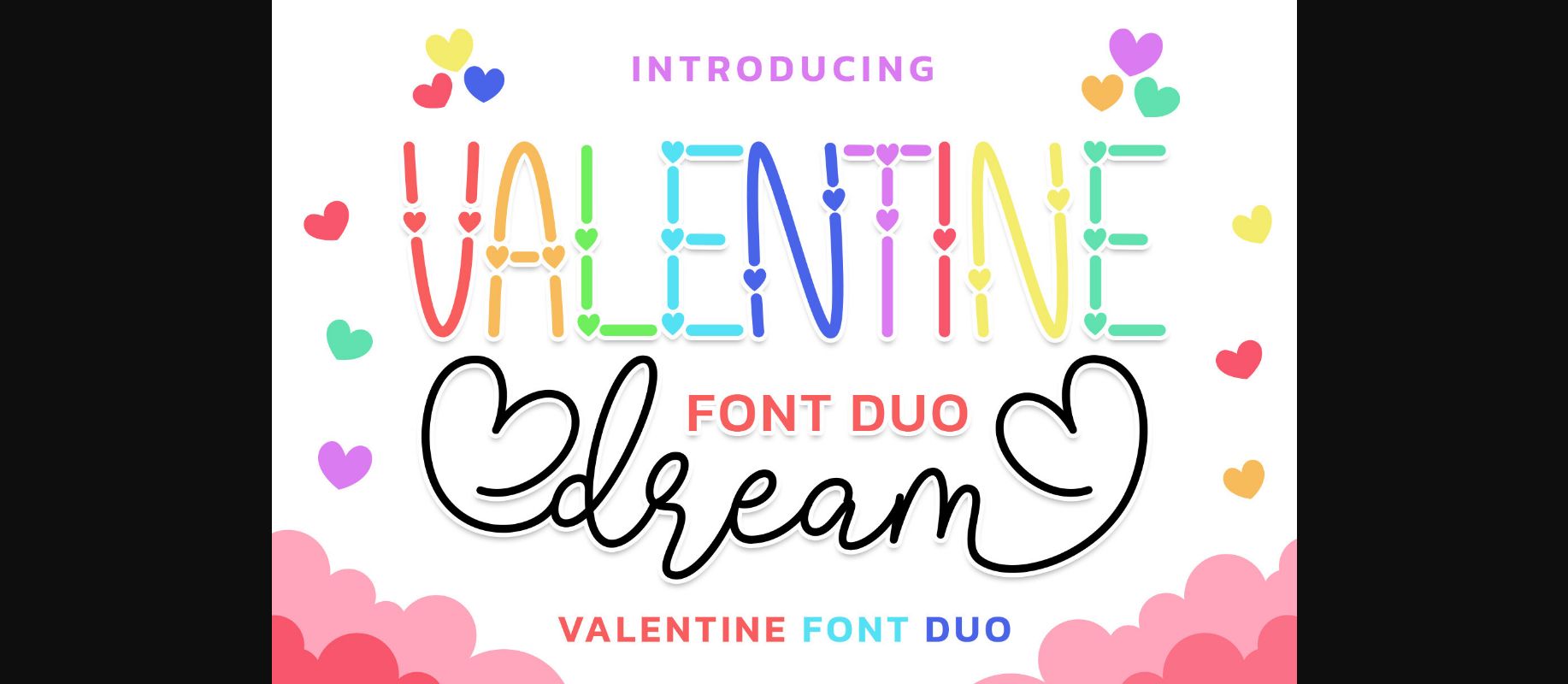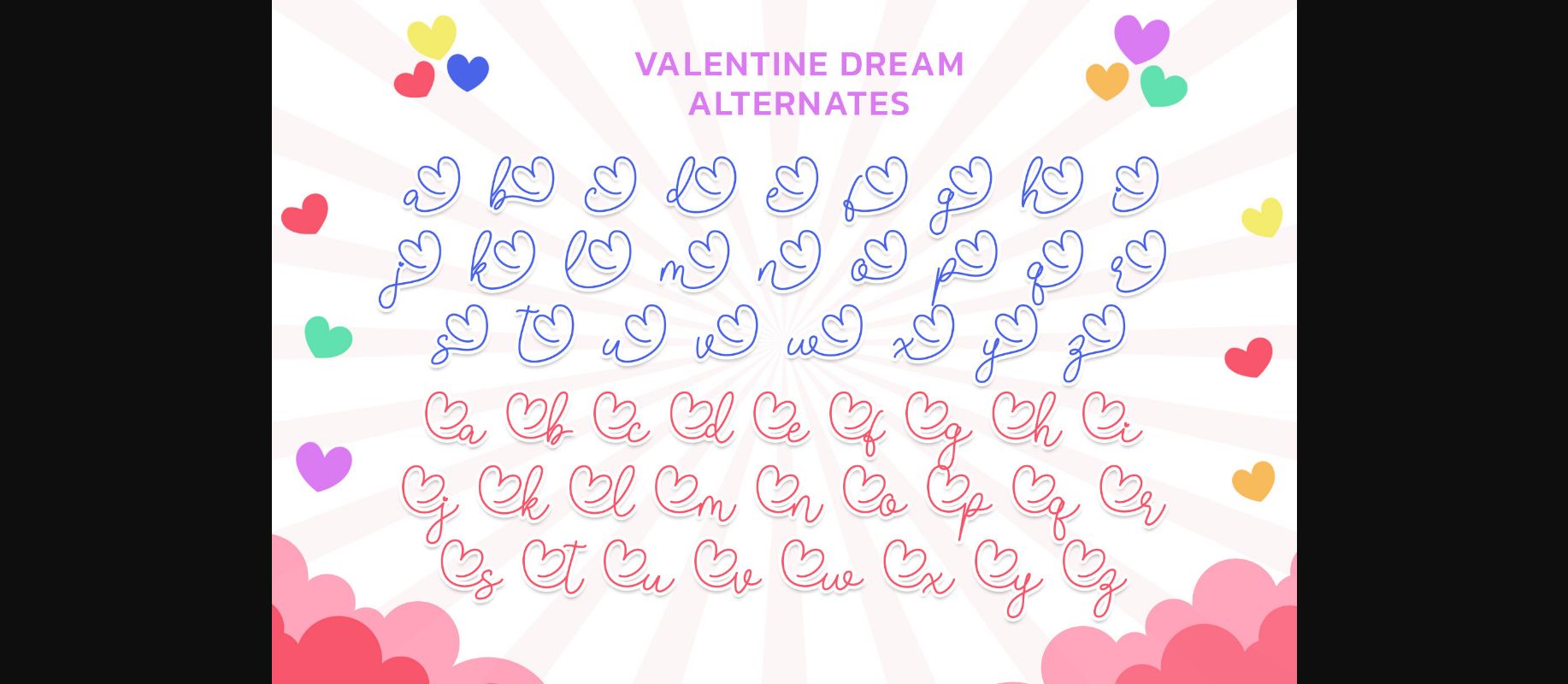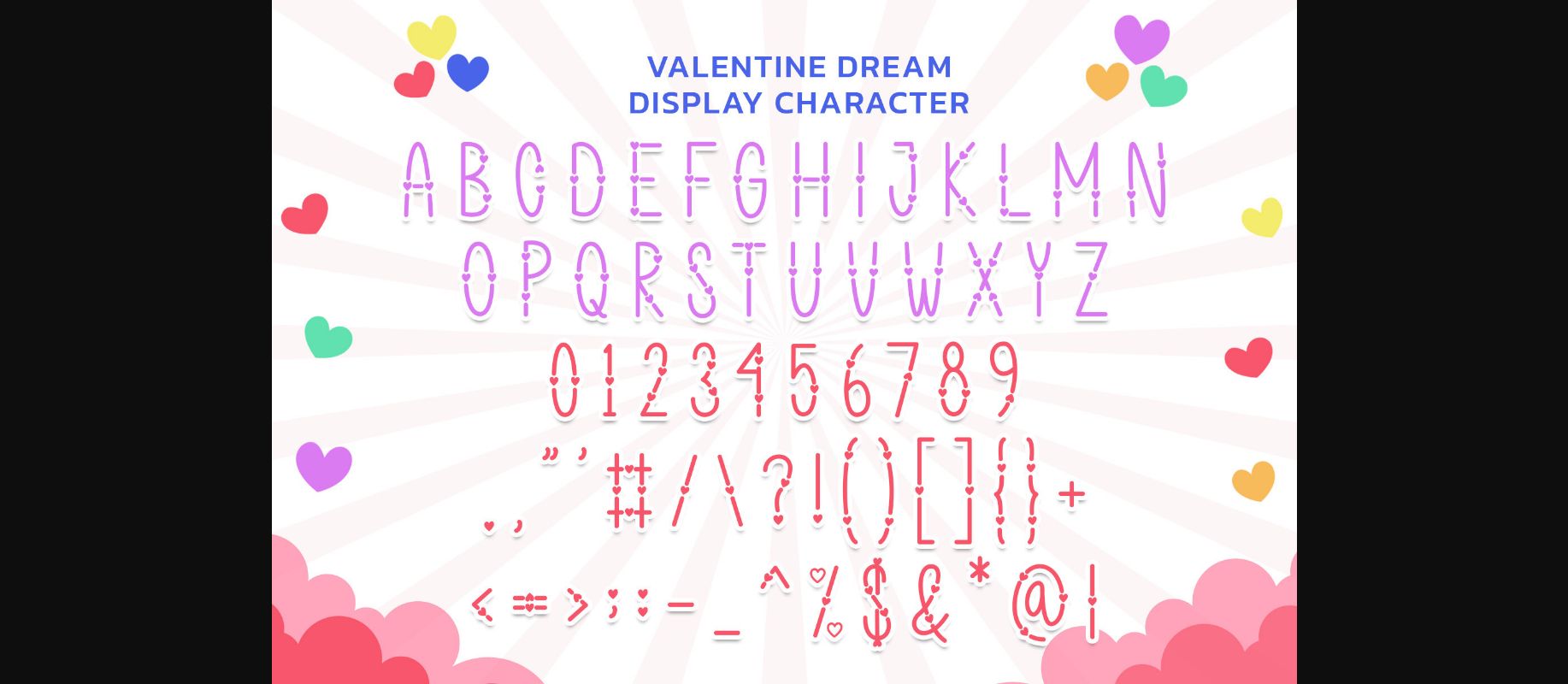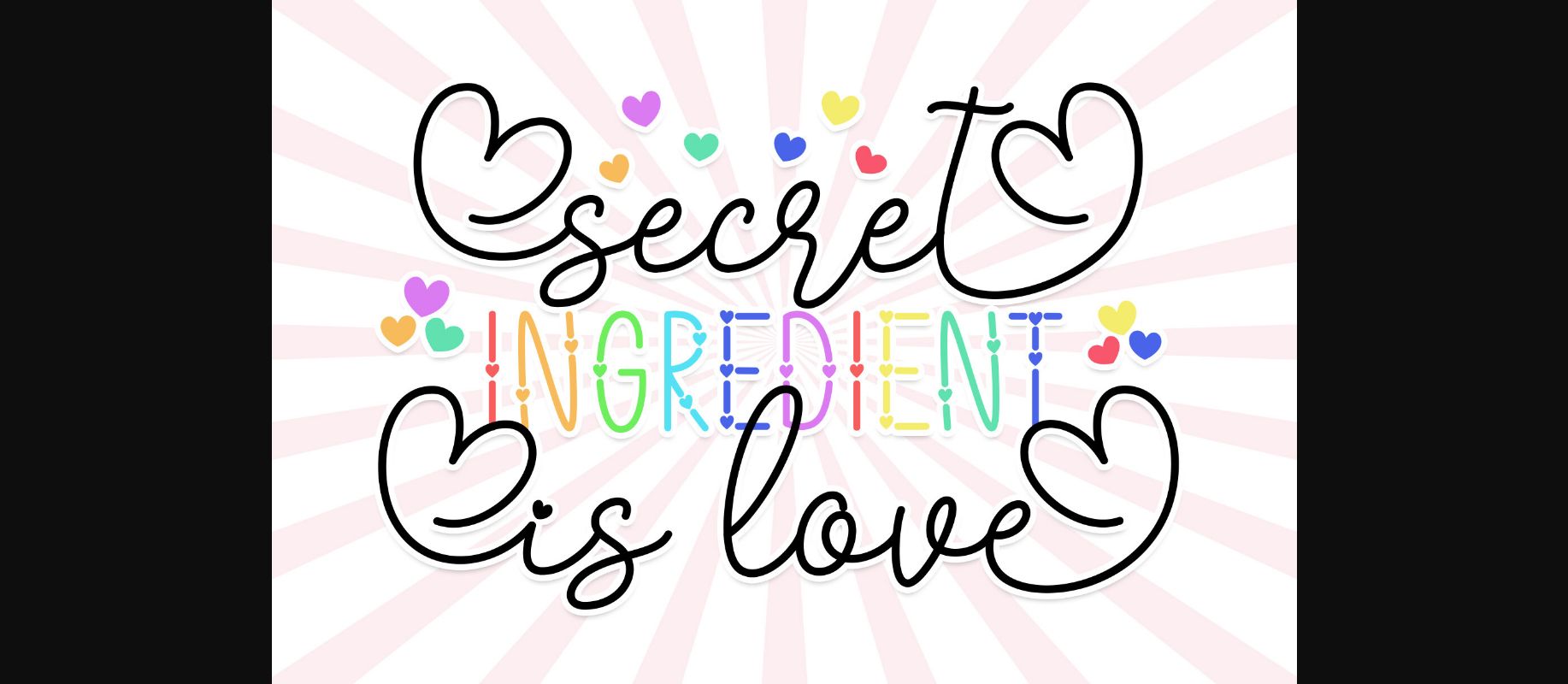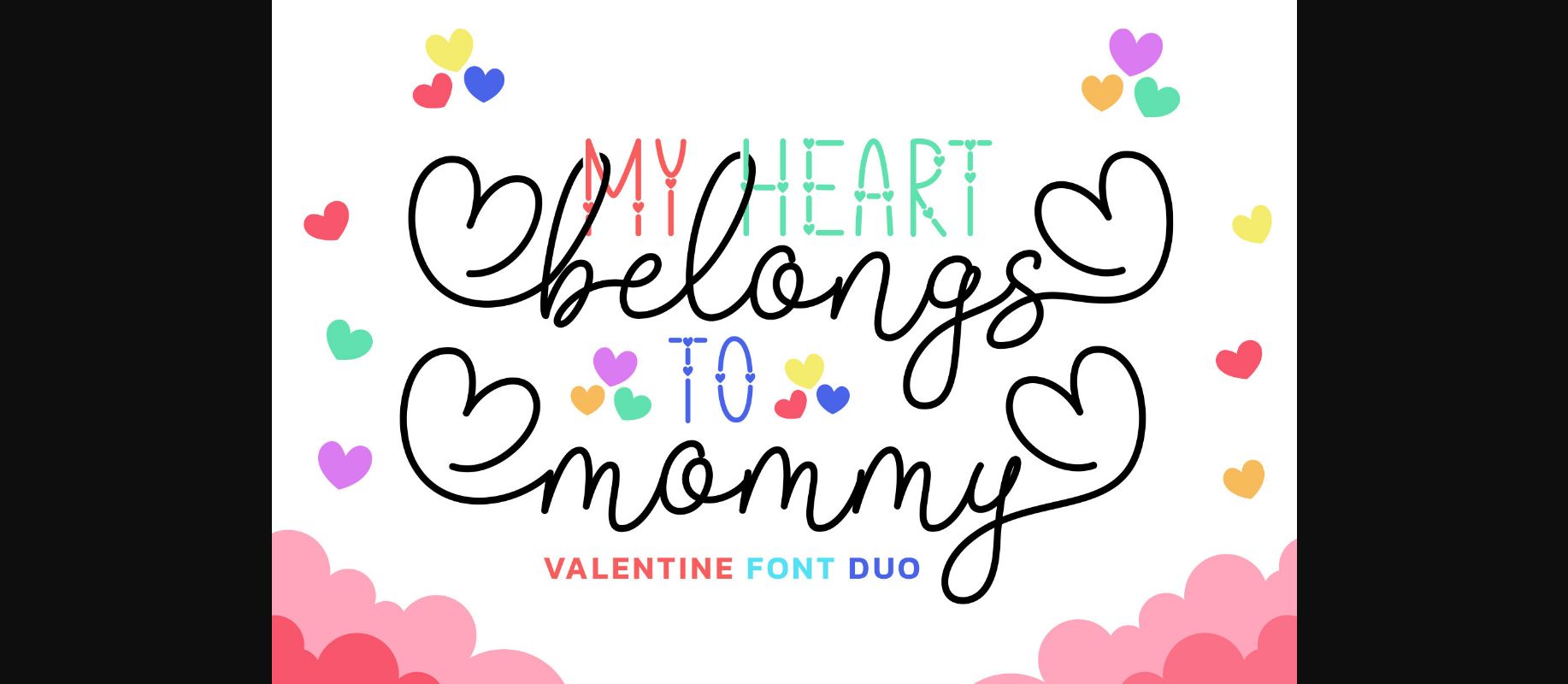
About Valentine Dream Duo Font
Valentine Dream is a lovely and cute font duo with two styles – script monoline and sans display. This font is inspired by Valentine’s day, which makes it suitable for this holiday, as well as other designs that require a romantic touch.